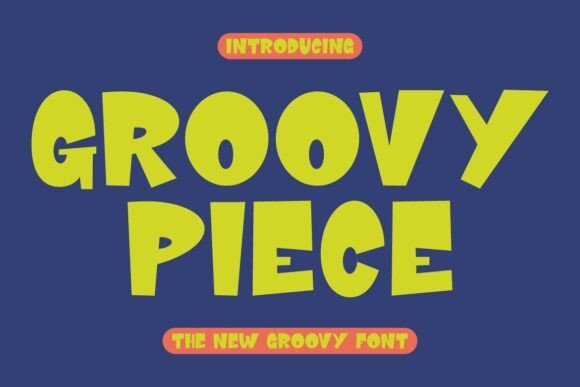
Groovy Piece Font: The Ultimate Guide to a Fun and Stylish Typography
In the world of typography, fonts play a crucial role in conveying the tone and personality of a brand or design. With the ever-evolving landscape of graphic design, it’s essential to stay ahead of the curve with fresh and exciting fonts. One such font that’s making waves in the design community is the Groovy Piece Font. In this comprehensive article, we’ll dive into the world of Groovy Piece, exploring its unique features, characteristics, and uses.
What is Groovy Piece Font?
Groovy Piece is a fun and stylish new font that exudes a groovy feel. Its characters are designed to be bouncy yet firm, giving the font a dynamic and energetic vibe. With clean lines and a hint of playfulness, this font is perfect for capturing a retro, fun-loving aesthetic.
The Groovy Piece Font is ideal for designs that require a playful and youthful touch. Whether you’re working on a branding project, creating a social media graphic, or designing a website, this font is sure to add a dash of personality to your work.
Key Features of Groovy Piece Font
- Bouncy yet firm characters: The Groovy Piece Font features characters that are designed to be bouncy and energetic, yet firm and stable. This unique combination gives the font its distinctive vibe.
- Clean lines: The font boasts clean lines and a minimalist aesthetic, making it perfect for designs that require a touch of sophistication.
- Playful and fun-loving: The Groovy Piece Font is designed to evoke a sense of playfulness and fun. It’s ideal for designs that require a youthful and energetic touch.
- Retro aesthetic: The font’s unique design elements give it a retro aesthetic that’s perfect for designs that require a nostalgic feel.
Uses of Groovy Piece Font
The Groovy Piece Font is versatile and can be used in a variety of design projects, including:
- Branding and logos: The font’s unique design elements make it perfect for creating memorable and eye-catching logos.
- Social media graphics: The Groovy Piece Font is ideal for creating engaging and fun social media graphics that require a playful touch.
- Web design: The font’s clean lines and minimalist aesthetic make it perfect for web design projects that require a touch of sophistication.
- Print design: The Groovy Piece Font can be used in a variety of print design projects, including brochures, flyers, and posters.
Tips for Using Groovy Piece Font
Here are some tips for using the Groovy Piece Font effectively in your designs:
- Use it sparingly: The Groovy Piece Font is a bold and playful font. Use it sparingly to avoid overwhelming your design.
- Pair it with neutral fonts: Pair the Groovy Piece Font with neutral fonts to create a balanced and harmonious design.
- Experiment with colors: The Groovy Piece Font looks great in bright and bold colors. Experiment with different colors to find the perfect combination for your design.
In conclusion, the Groovy Piece Font is a fun and stylish font that’s perfect for designs that require a playful and youthful touch. Its unique features, such as bouncy yet firm characters, clean lines, and a hint of playfulness, make it an excellent choice for a variety of design projects. By following the tips outlined in this article, you can use the Groovy Piece Font effectively in your designs and add a dash of personality to your work.